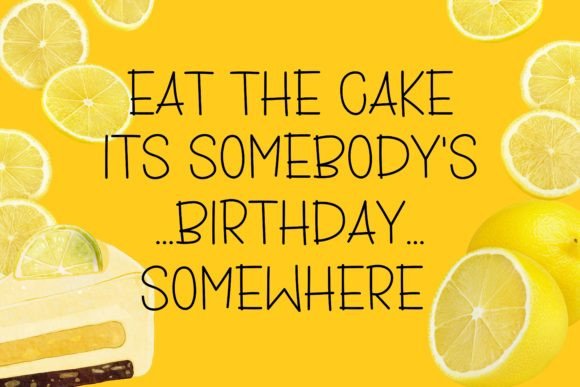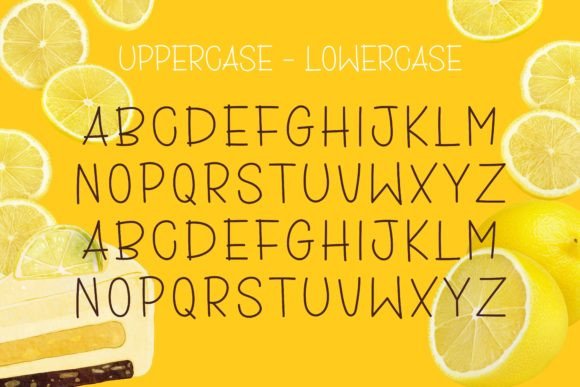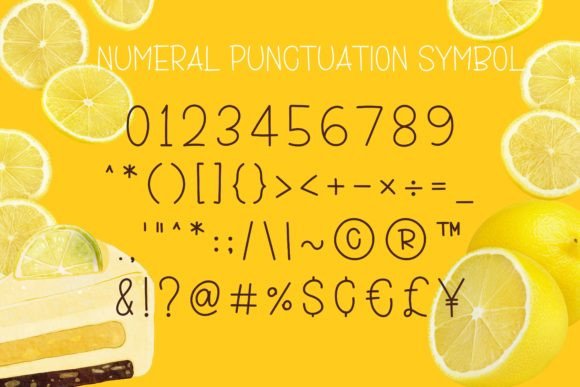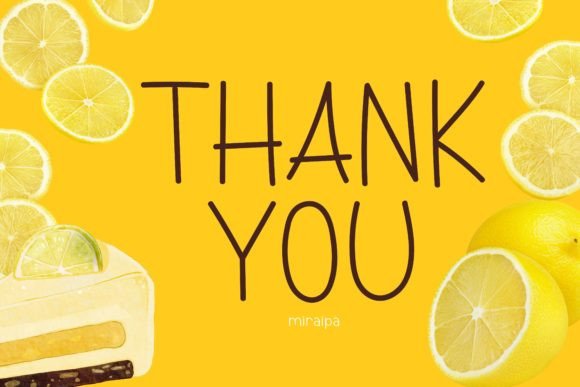
Introduction to Lemon Cheesecake Font
Lemon Cheesecake is a sweet and quirky handwritten sans serif font.
It embodies playfulness and authenticity and is the perfect choice for any project that requires a whimsical and joyful touch .